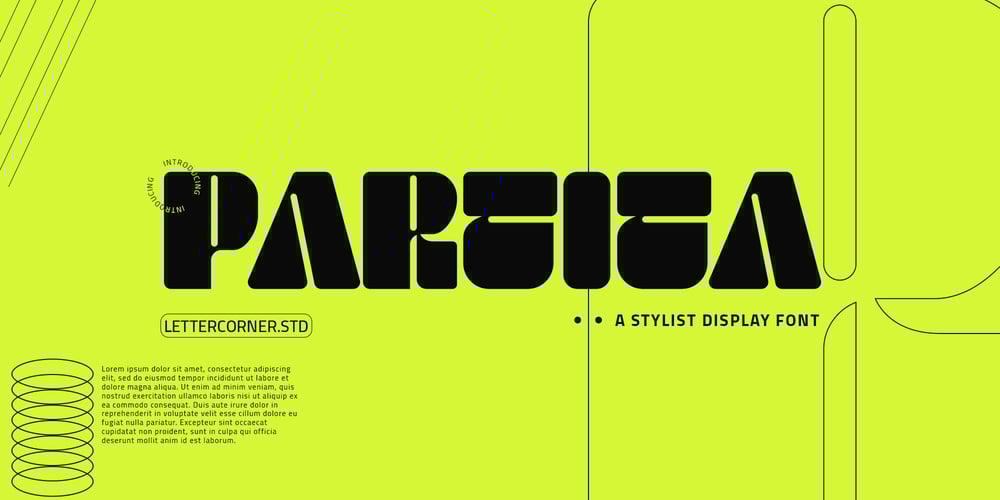
Partita Font Family was designed by Muhammad Afif Ersya and published by Mevstory Studio. Partita contains 1 styles and family package options. Introducing, Partita. A reverse contrast bold font suitable for display especially. Perfect for your daily project like for headline poster, packaging, social media, branding, or anything about pop and fun design.Features : numbers and punctuation ligatures multilingual PUA encoded We highly recommend using a program that supports OpenType features and Glyphs panels like many of Adobe apps and Corel Draw, so you can see and access all Glyph variations. Email us to lettercornerstudio@gmail.com if you need something! Happy Designing!